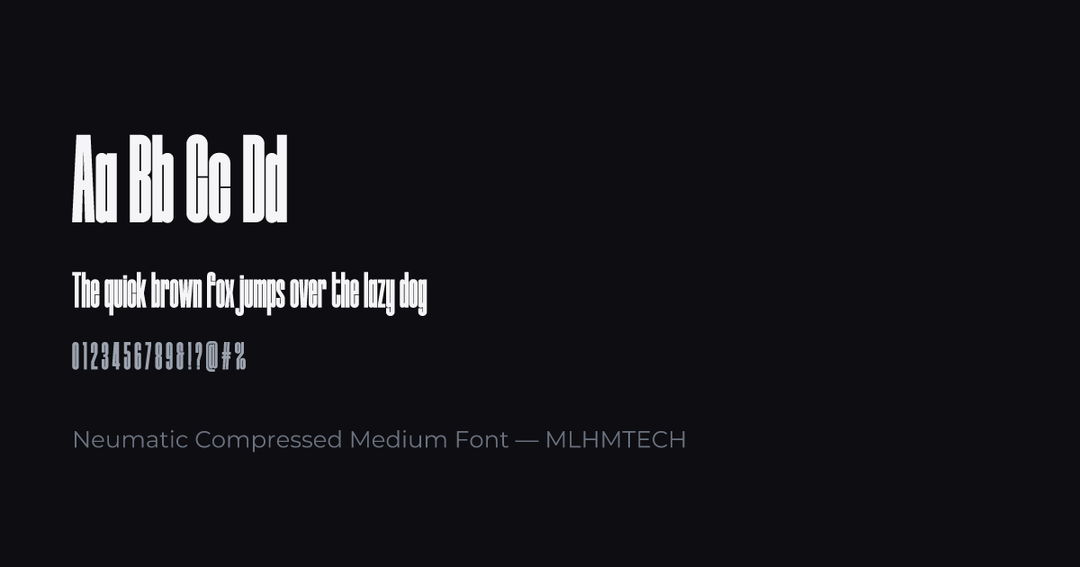
Neumatic Compressed Medium Font
Neumatic Compressed Medium is a modern compressed sans-serif font ideal for bold headlines and impactful designs.
Neumatic Compressed Medium is a versatile font that combines a compressed width with a medium weight, offering a contemporary and space-efficient typeface. Its clean lines and strong presence make it perfect for headlines, titles, and branding projects where you need to make a statement without taking up too much horizontal space.
This font is part of the Handpicked Fonts collection, ensuring high quality and usability. Whether you're designing for print, web, or video, Neumatic Compressed Medium adds a touch of modern sophistication. Its legibility at various sizes makes it a reliable choice for both large displays and smaller text elements.